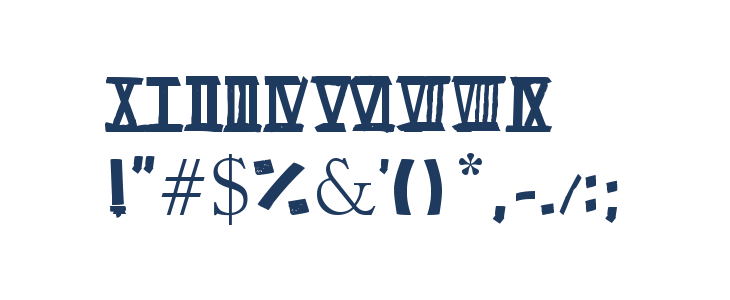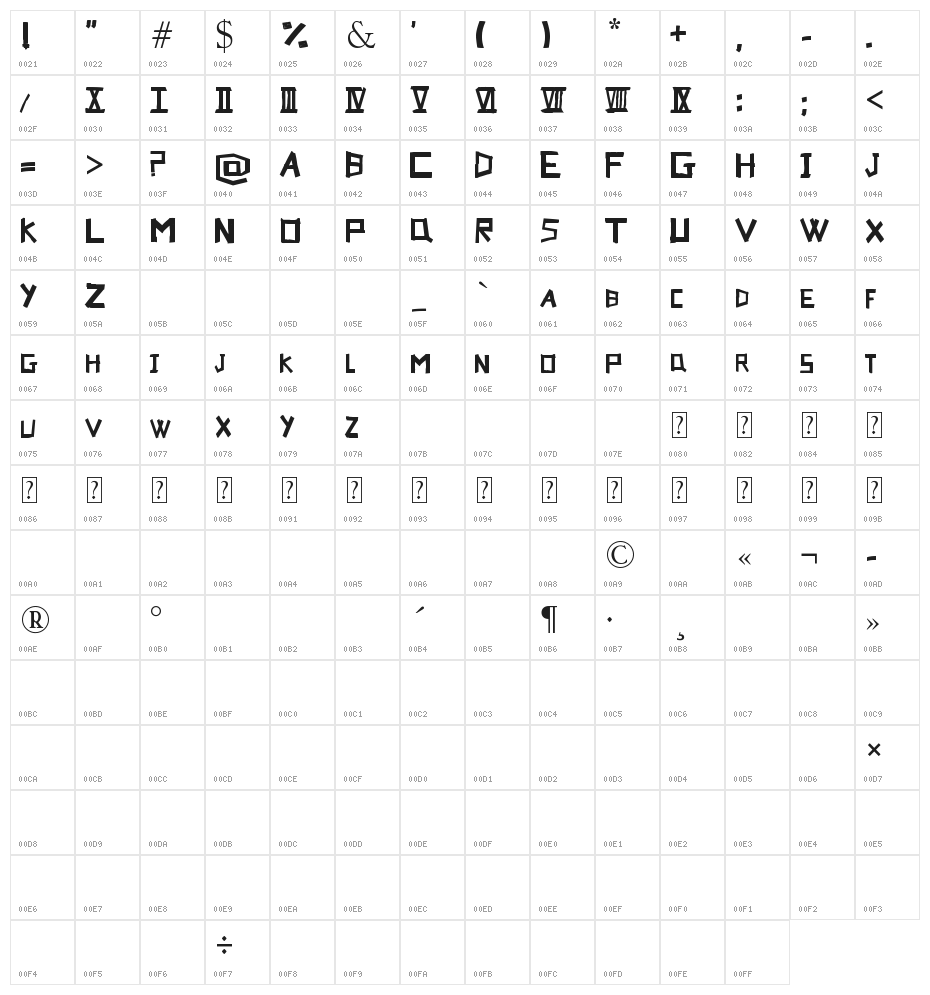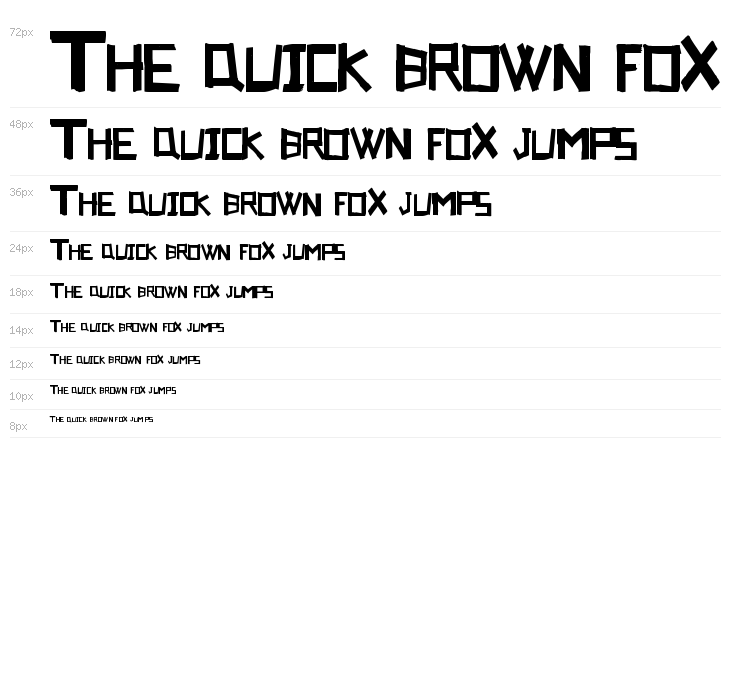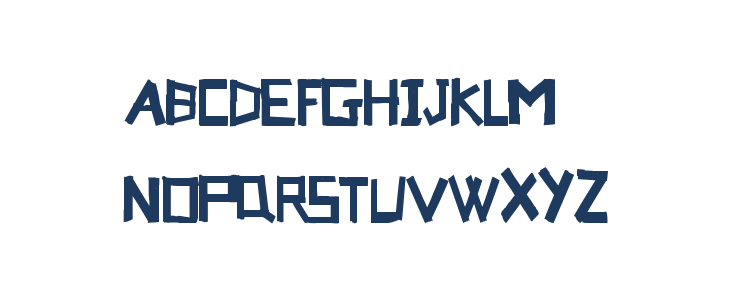
SURU Font
SURU Description
This font exhibits a bold and rugged style, characterized by its thick, uneven strokes and angular forms. The letters have a hand-drawn, almost graffiti-like appearance, giving it a raw and edgy feel. The uppercase and lowercase letters maintain a consistent style, with the uppercase being slightly more pronounced. The numerals are stylized with a similar boldness, and the special characters follow suit, adding to the overall cohesive look. The font's irregularities and boldness make it stand out, suitable for designs that require a strong visual impact.
Overall StyleEdgy, Urban, Raw
Use CaseLogos, Posters, Album Covers
Proposed ProjectsIdeal for street art designs, music album covers, edgy branding, or any project needing a bold statement.